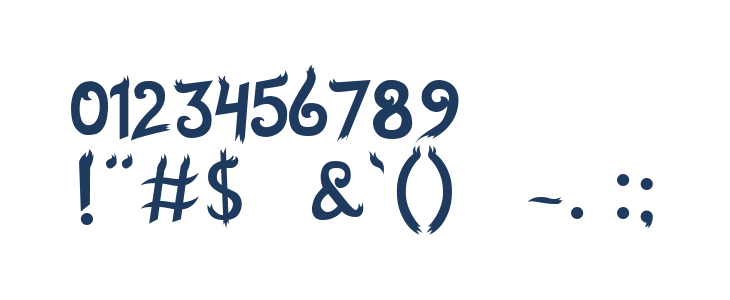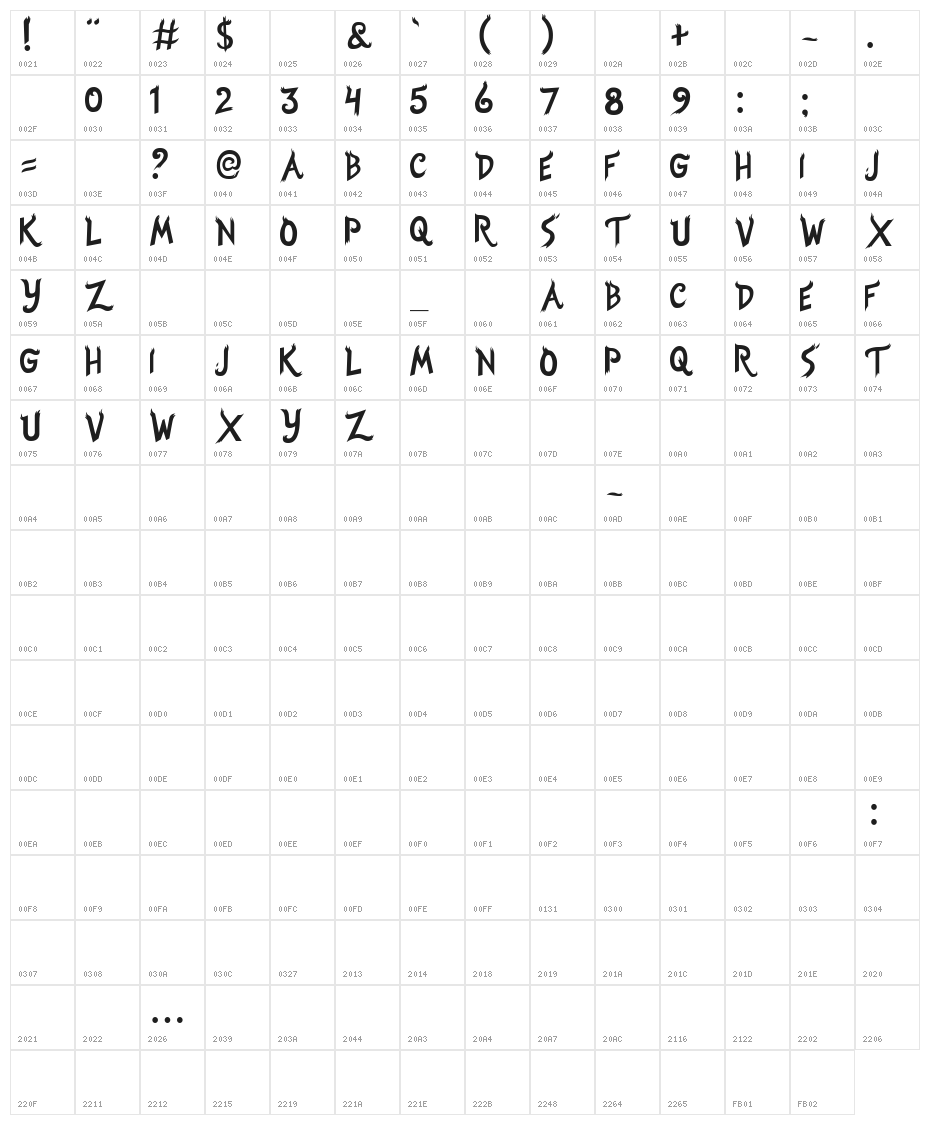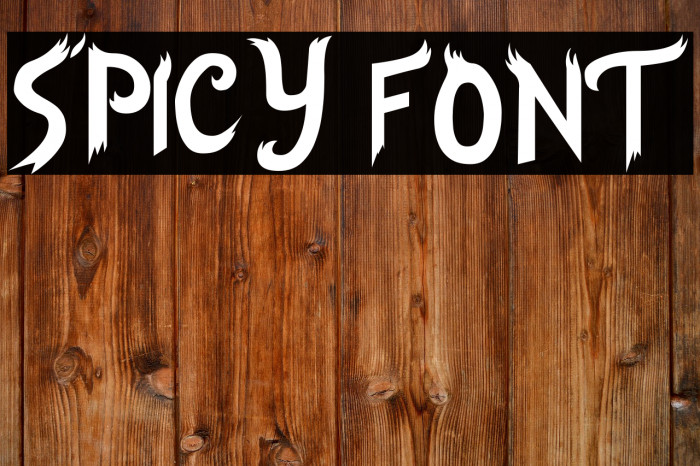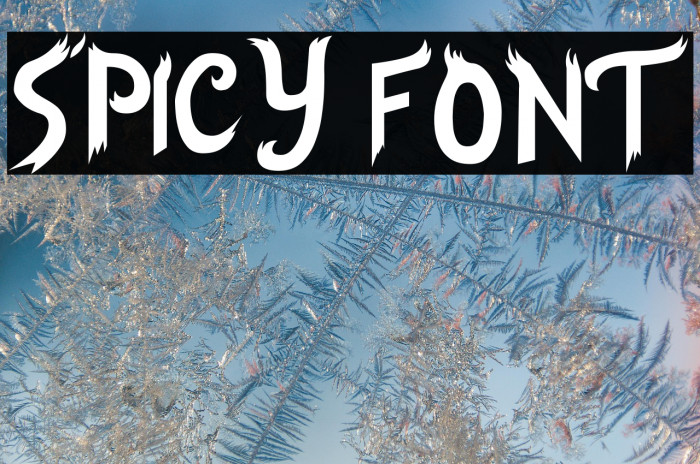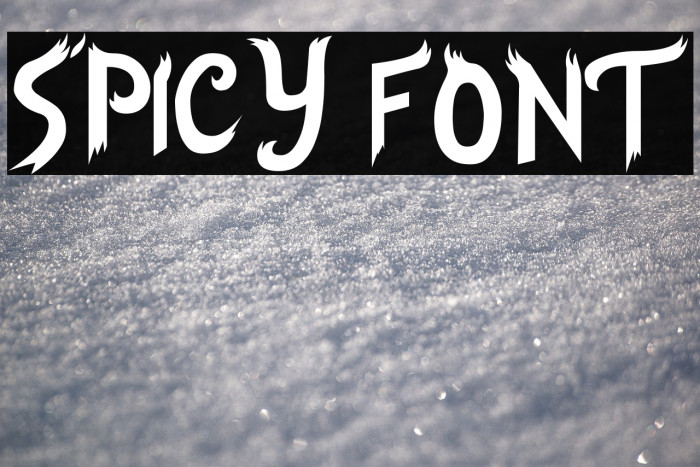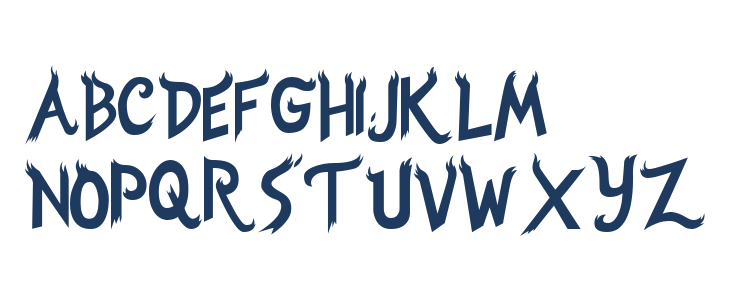
Spicy Font
Spicy Description
This font features a dynamic and edgy design, characterized by sharp, flame-like extensions on each character, giving it a fiery and energetic appearance. The uppercase and lowercase letters maintain a consistent style, with jagged edges that suggest movement and intensity. The numerals and special characters follow the same aesthetic, ensuring a cohesive look across all glyphs. This font's unique style makes it stand out, ideal for projects that require a bold and impactful visual statement.